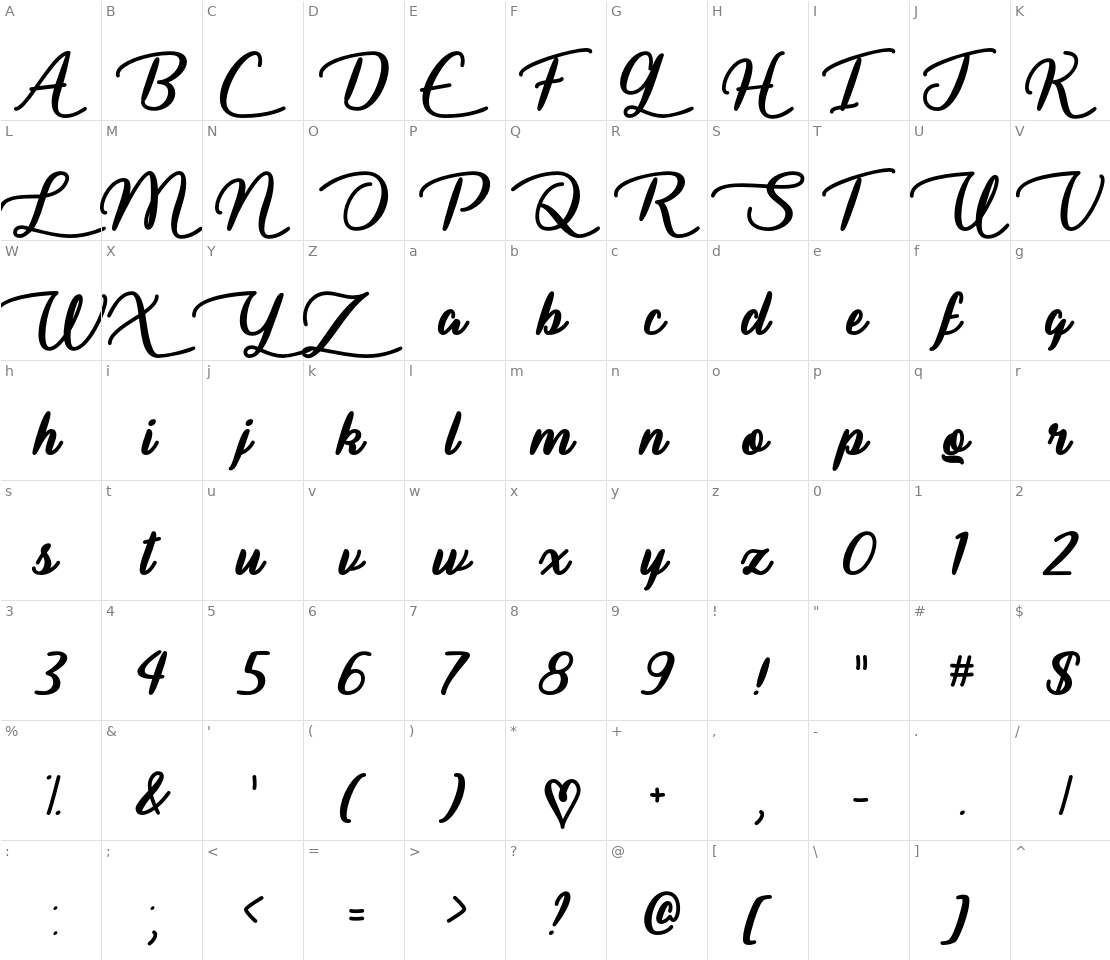
Liar Script
Liar Script is a bold connected script from Misti's Fonts with flowing letterforms that split the difference between casual handwriting and polished elegance. The strokes are confident and thick, giving it more presence than most scripts without losing the warmth of something hand-lettered. Works well for invitations, event branding, and headlines where you want personality with a touch of refinement.